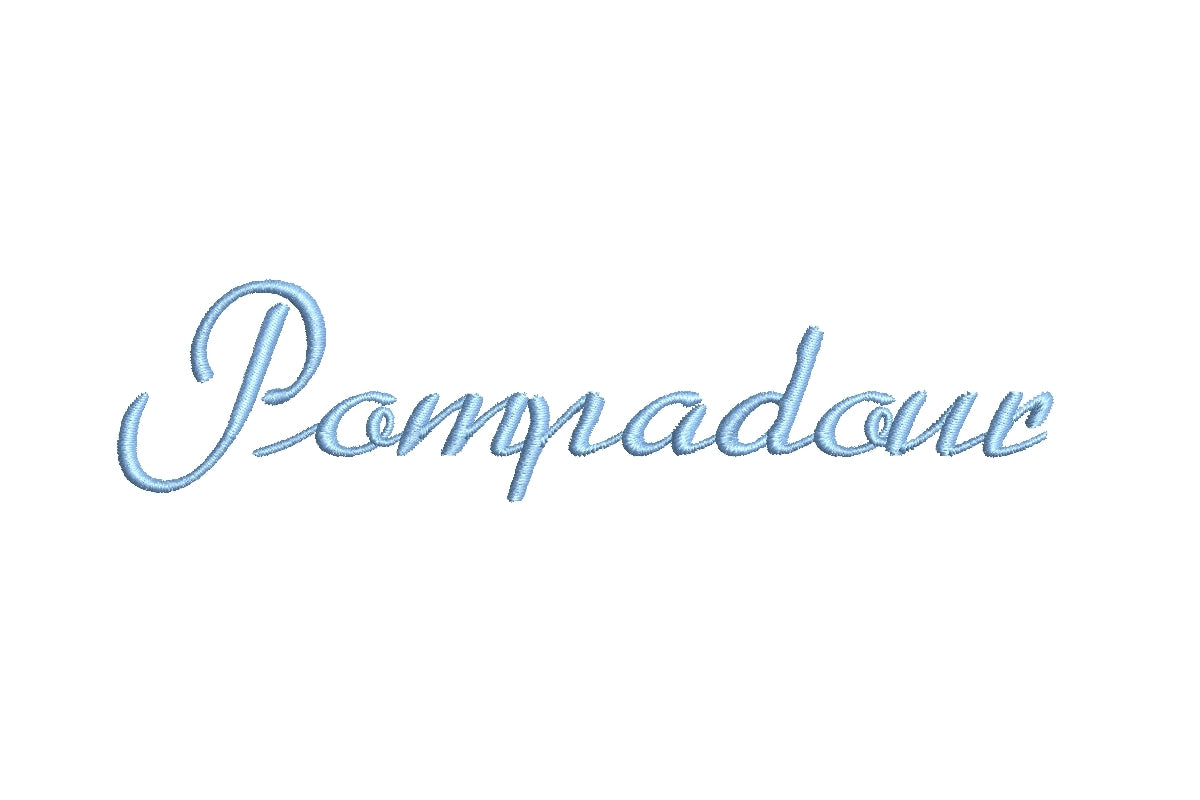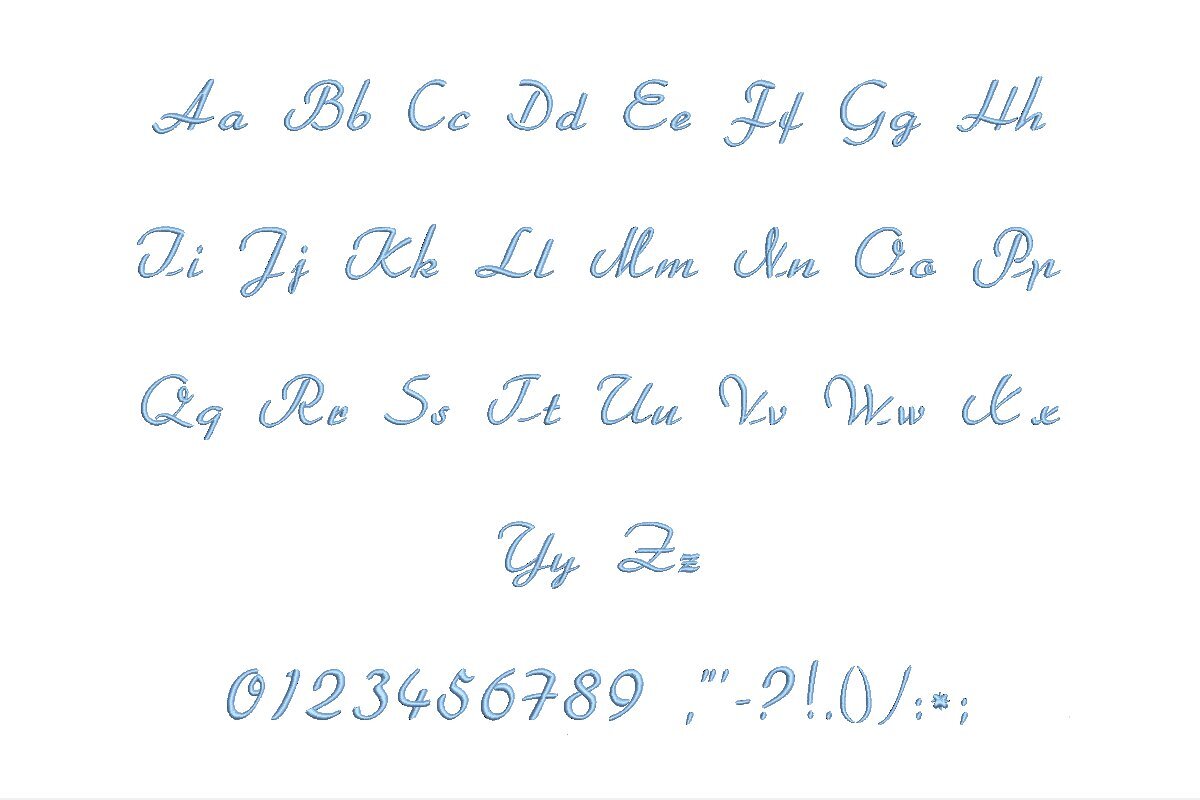
Elevate your embroidery projects with the Pompadour ESA font, tailor-made for compatibility with Wilcom Studio e4.5.6 and Hatch 3 versions and beyond. This font sets a new standard for precision and versatility, ensuring impeccable stitching quality. Its classic yet stylish design offers timeless charm and optimal readability, suitable for various creative applications. The ESA format guarantees pixel-perfect digitization, ensuring seamless integration with both Wilcom Studio and Hatch. Whether crafting monograms, logos, or text, the Pompadour ESA font simplifies the design process, delivering unmatched clarity and sophistication. Choose the Pompadour ESA font to take your embroidery to professional heights.